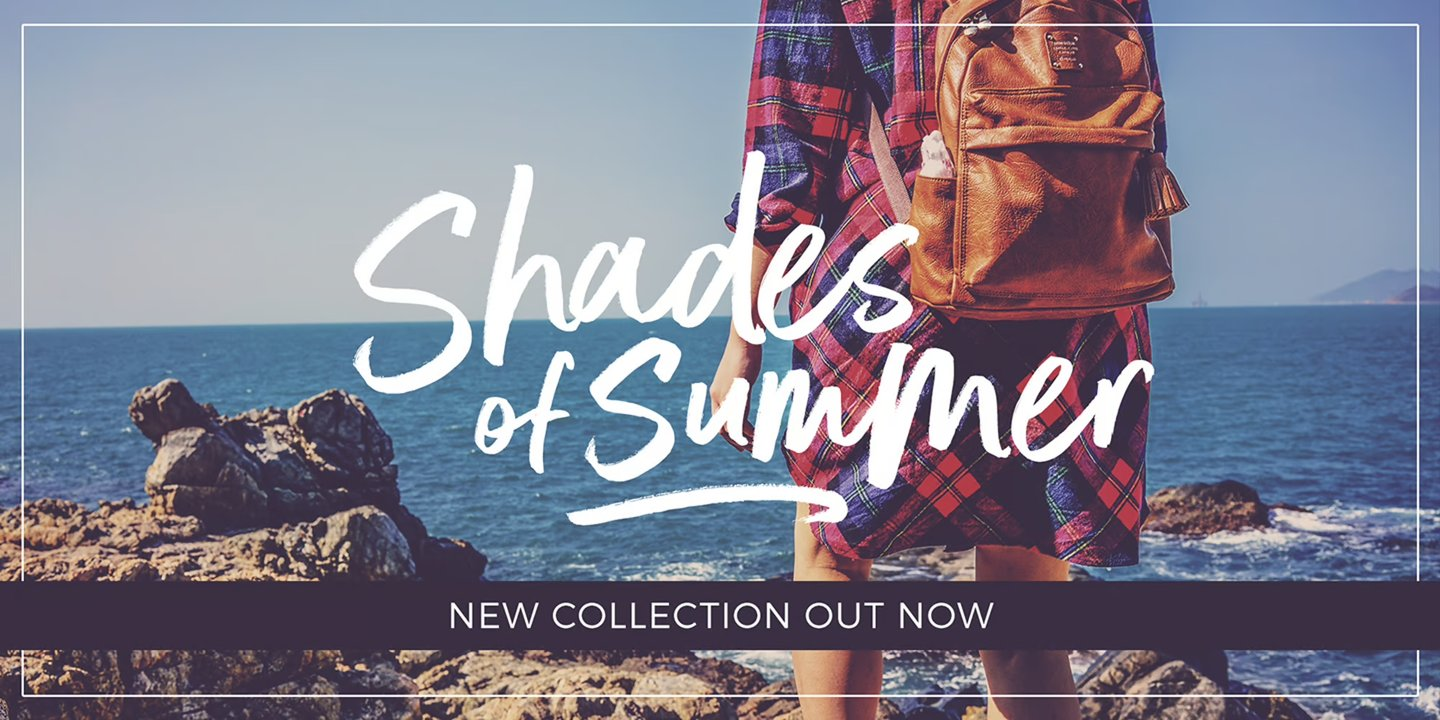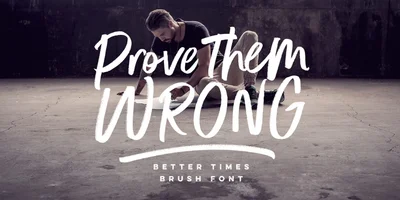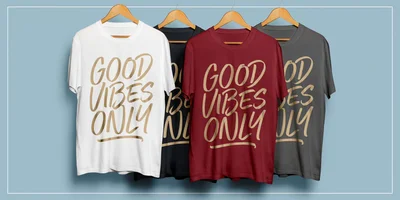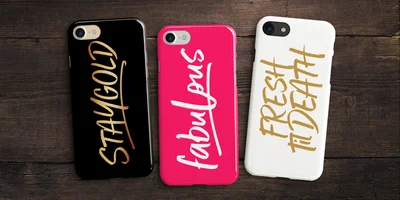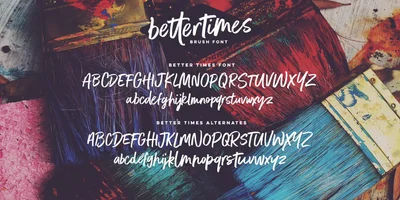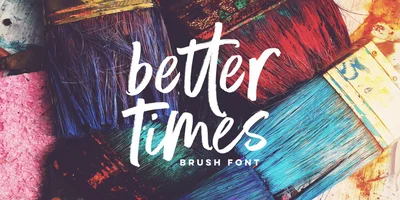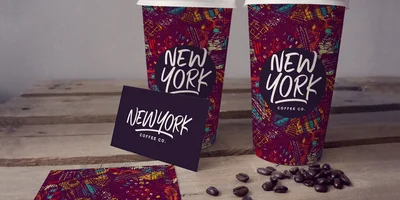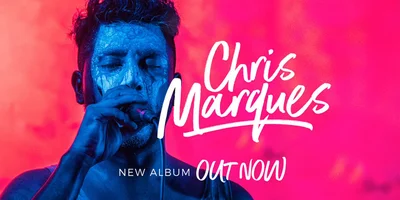
Better Times vs Brush Script
Better Times and Brush Script are both display typefaces sharing a script foundation. Where Better Times leans elegant, Brush Script brings warm, handwritten. Compare which suits your Retro project.
| Feature | Better Times | Brush Script |
| Classification | display | display |
| Language Support | latin, latin-extended | latin |
| Source | Nicky Laatz | Linotype |
Recommended: Better Times
- elegant design character
- Suited for Branding and Vintage
- From nicky-laatz
Consider: Brush Script
- warm, handwritten design character
- Suited for Casual and Packaging
- From linotype